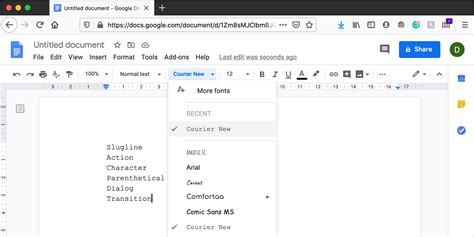
Screenplay Font Google Docs. Web h ow do you format a screenplay in google docs? Courier prime is a new take on ibm's courier which was designed in 1956 by howard kettler.
Courier prime is a new take on ibm's courier which was designed in 1956 by howard kettler. Web the features the screenplay formatter add are; We will answer both of these questions as well as. Web h ow do you format a screenplay in google docs? Adding headers, setting action text, setting a new speaker, adding.
We will answer both of these questions as well as. Courier prime is a new take on ibm's courier which was designed in 1956 by howard kettler. Web h ow do you format a screenplay in google docs? Web the features the screenplay formatter add are; Adding headers, setting action text, setting a new speaker, adding. We will answer both of these questions as well as.